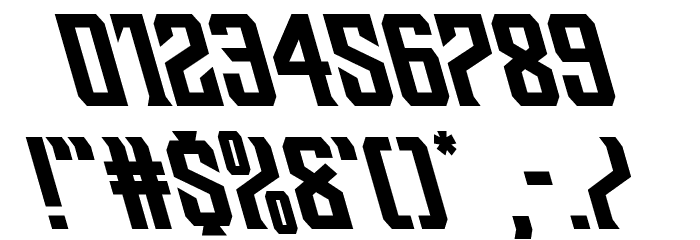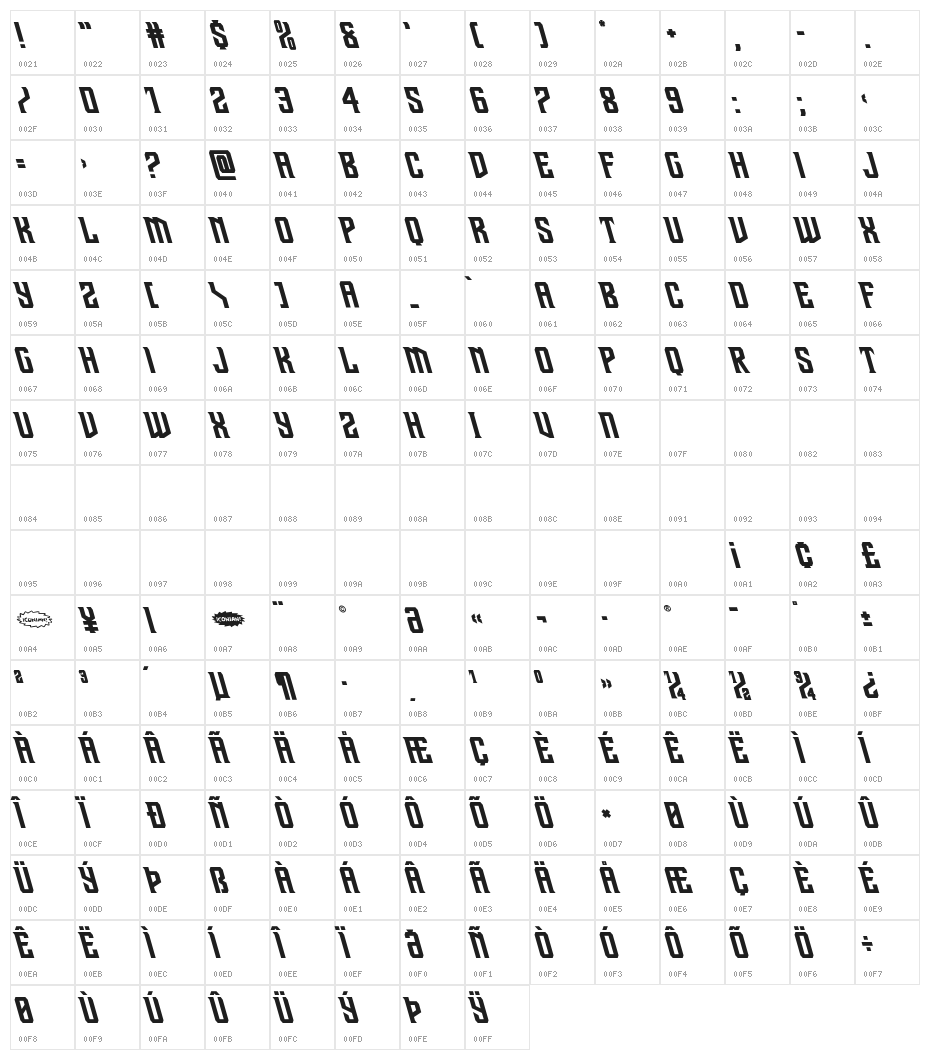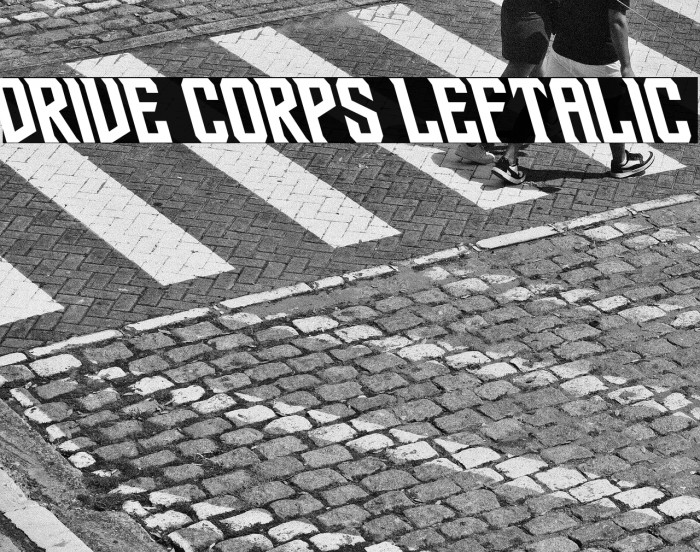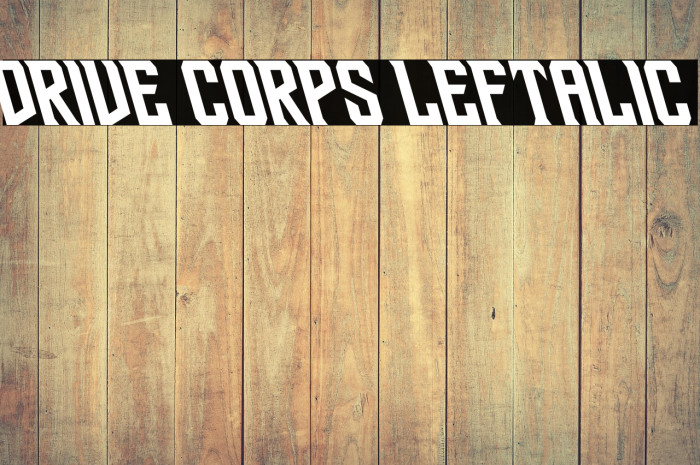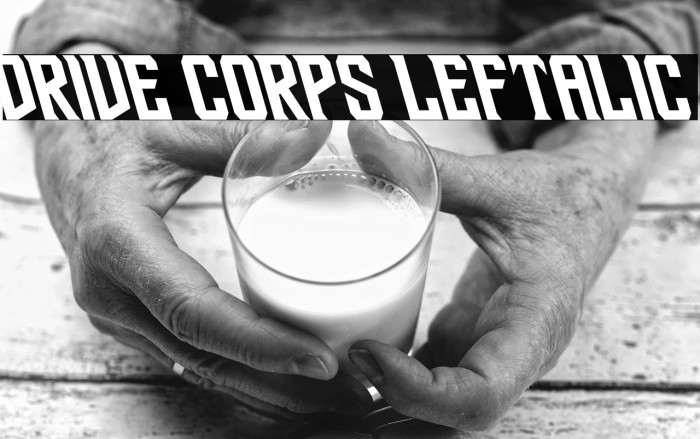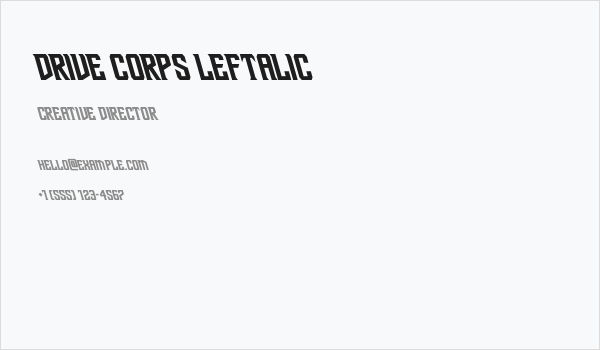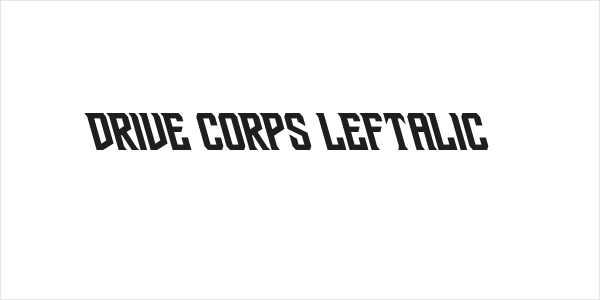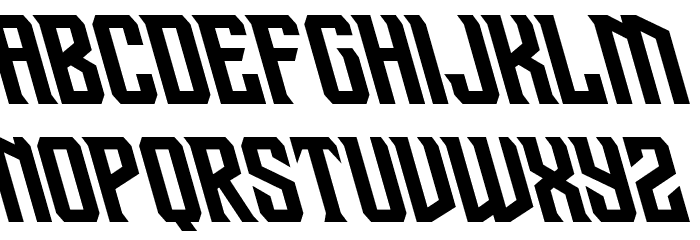
Drive Corps Leftalic Font
Drive Corps Leftalic Description
This font features a bold and dynamic design with a distinct slant to the left, giving it a sense of motion and energy. The characters are angular and geometric, with sharp edges and a strong presence. The uppercase and lowercase letters maintain a consistent style, while the numbers and special characters complement the overall aesthetic. The boldness of the font makes it stand out, and its unique style is suitable for projects that require a modern and impactful look.
| Proposed Projects | Ideal for sports branding, dynamic posters, and modern logos. |